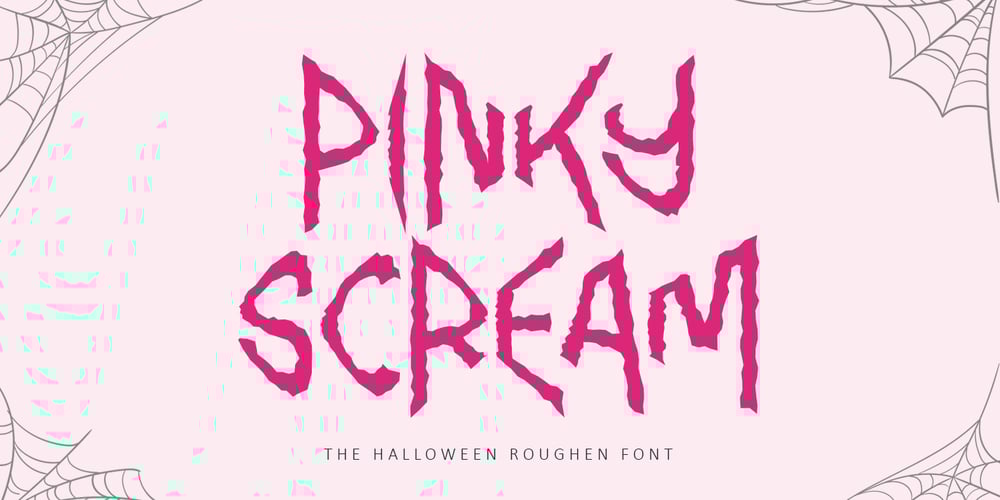
Pinky Scream Font Family was designed by Bayu Suwirya and published by Illushvara. Pinky Scream contains 1 styles and family package options. Pinky Scream is the ideal for for any crafting project during the scariest time of the year. It will take any Halloween craft with the sweet feeling to the next level!Font includes: All caps glyphs, numbers, basic punctuation, and international characters.If you have any question, don’t hesitate to contact me. Happy Designing !!!Thank You,Bayu Suwirya